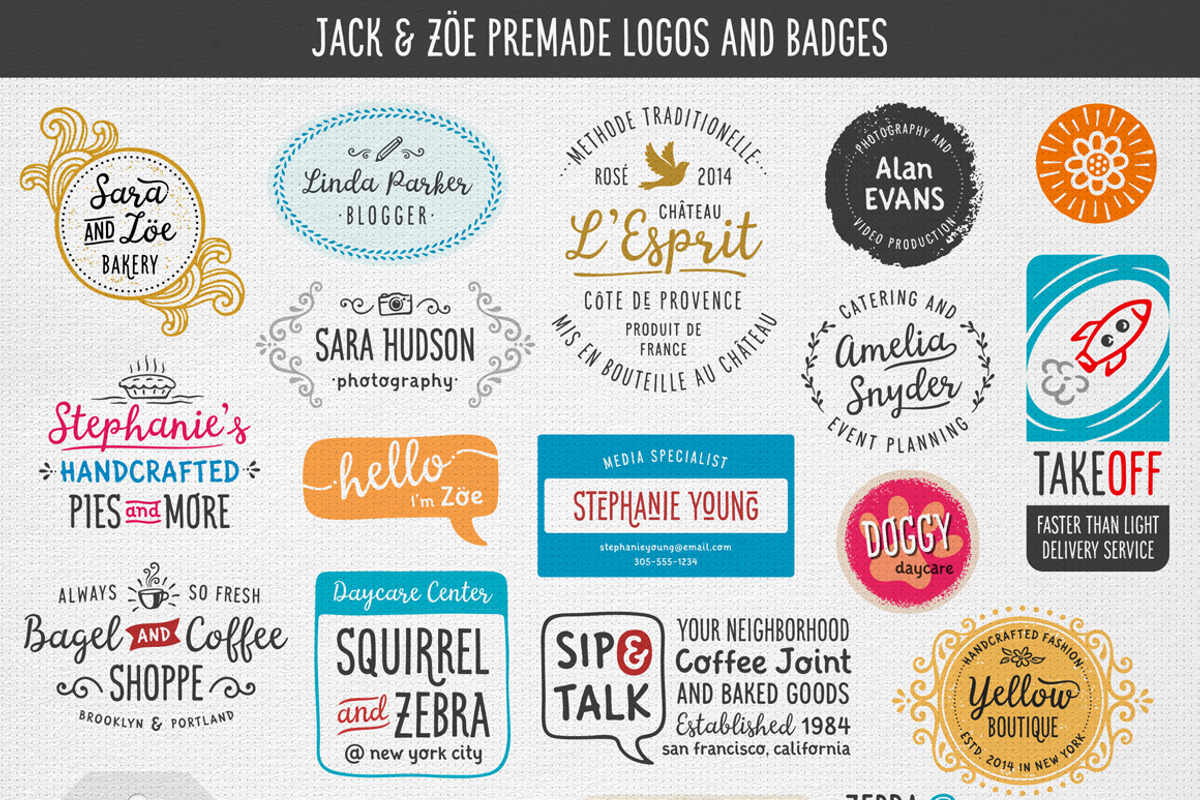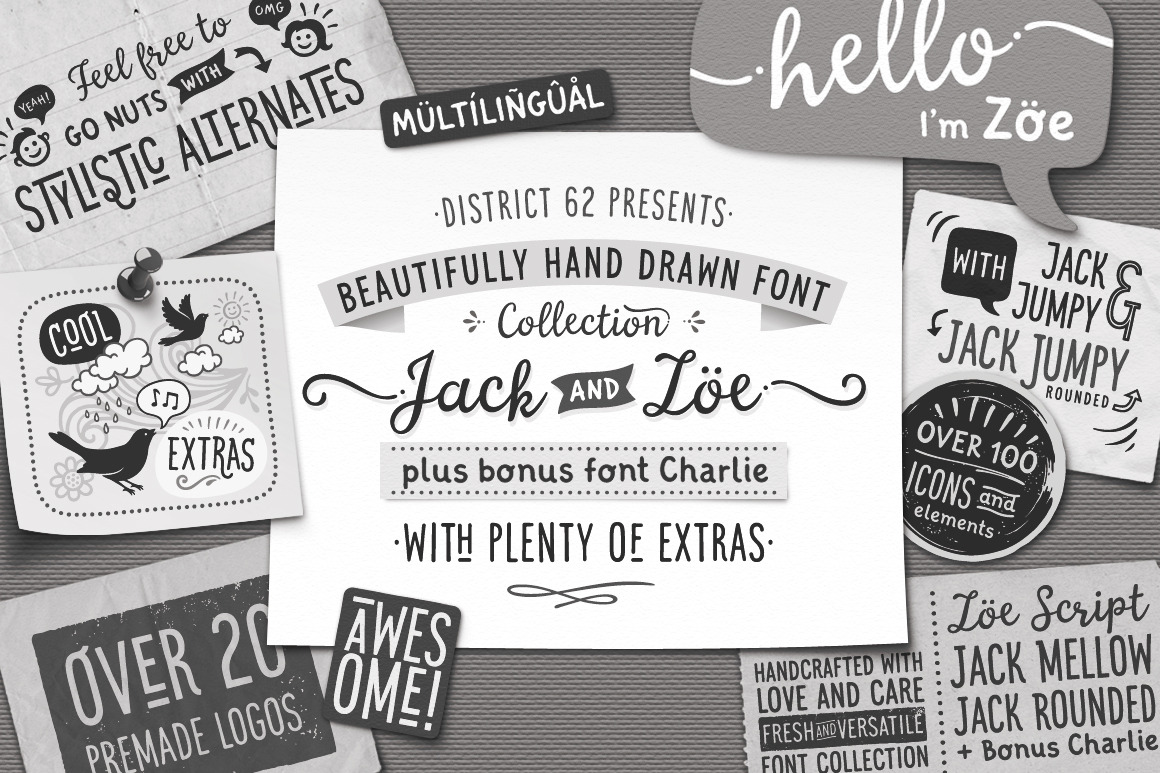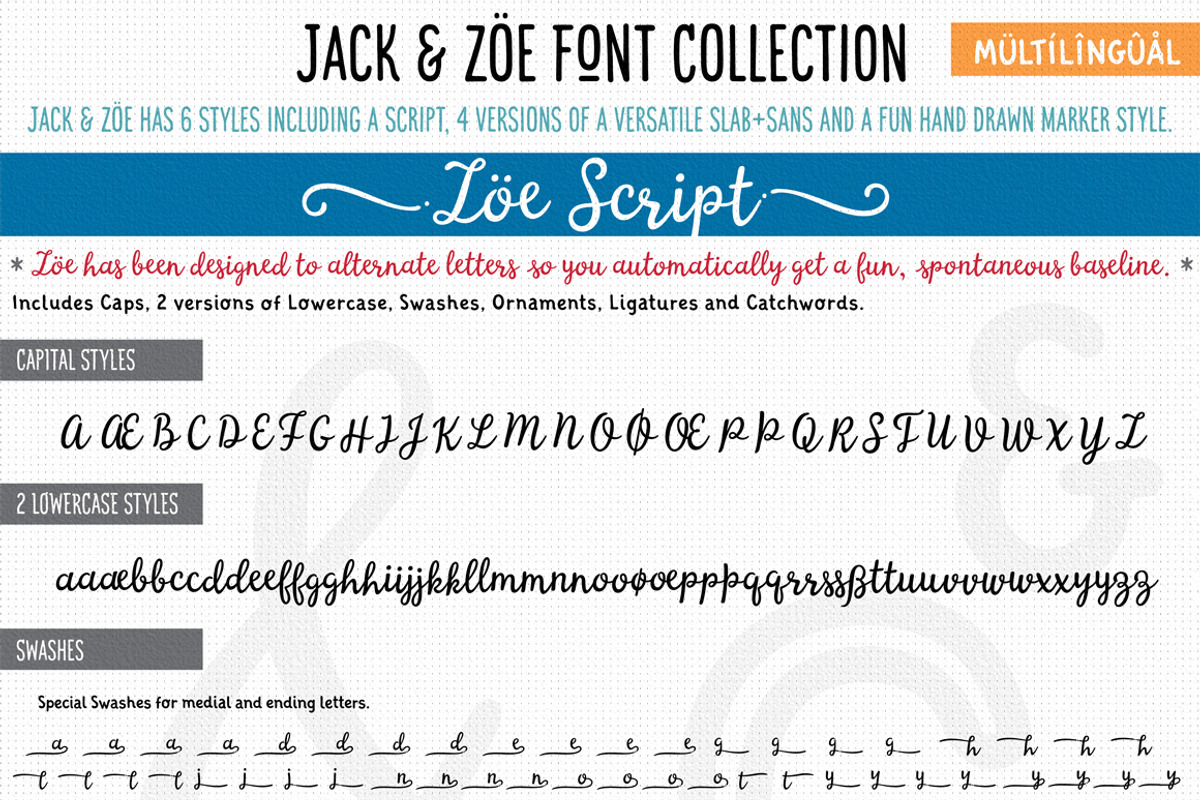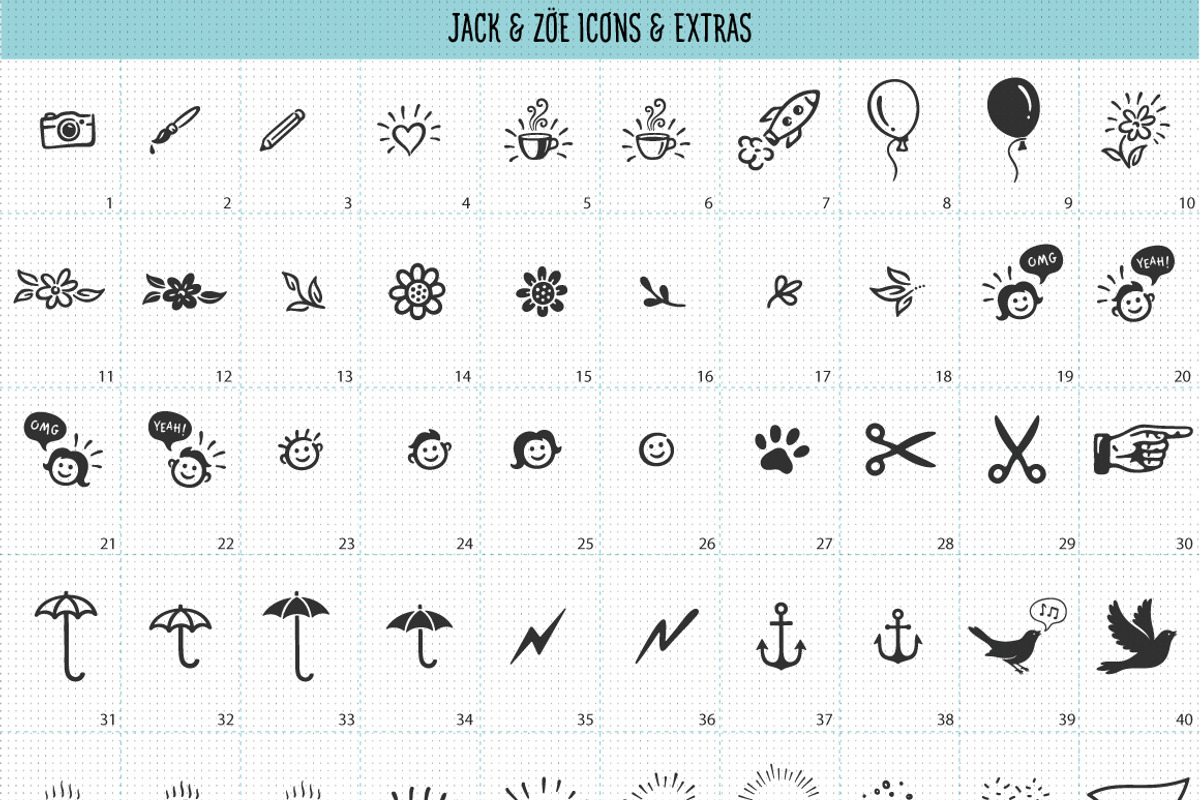
Jack and Zoe Font Collection
Jack & Zoe from District 62 is a collection of 6 fonts, and 130 icons and extras and over 20 editable pre-made logo templates. This collection was designed to work beautifully together and be super versatile. It is fresh and modern and can be used for almost any project, and works especially well for cards, stationery, typographic designs and anywhere you want a lively, modern look. All the fonts have been designed to automatically cycle between characters to give a spontaneous baseline and real hand drawn feel.
- Zoe script features all kinds of swashes for stylish beginnings, medians and endings.
- The fonts support Western European languages, and because our studio has a Serbian member, we squeezed in their special characters as well.